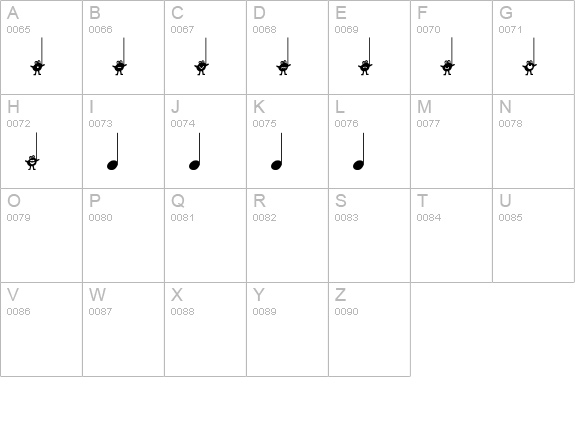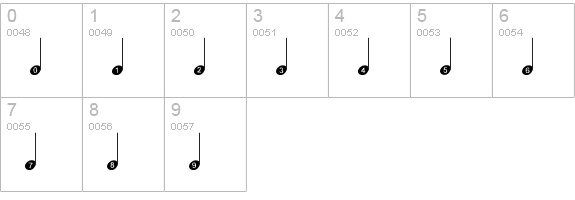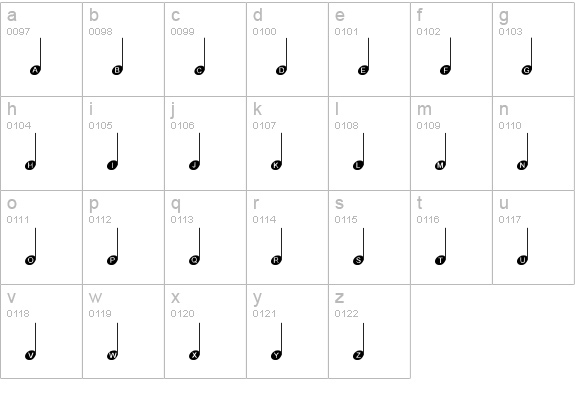
Simple Melody Font Details
Simple Melody is a beautifully crafted font that exudes elegance and simplicity. Its clean lines and graceful curves make it perfect for a wide range of design projects. Whether you're creating a logo, designing branding materials, or crafting invitations, Simple Melody will add a touch of sophistication to your work. What sets Simple Melody apart is not just its aesthetic appeal, but also the fact that it is free to download. Yes, you read that right - this exceptional font can be yours without spending a single penny. We believe that everyone should have access to high-quality fonts, and that's why we have made Simple Melody freely available to download at FontsMarket.com. With its versatile nature, Simple Melody can be used across various design mediums. Its legibility and versatility ensure that your message is conveyed effortlessly, whether it's in print or digital form. The carefully designed characters of Simple Melody add a unique flair to any project, making it stand out from the crowd. Whether you're a professional designer or a hobbyist, Simple Melody will become an invaluable addition to your font collection. Its timeless design and versatility make it suitable for any project, from modern and minimalistic designs to more classic and traditional layouts. So why wait? Discover the beauty and simplicity of Simple Melody font, and elevate your designs to new heights. Download it for free at FontsMarket.com and experience the joy of creating with this exceptional font.